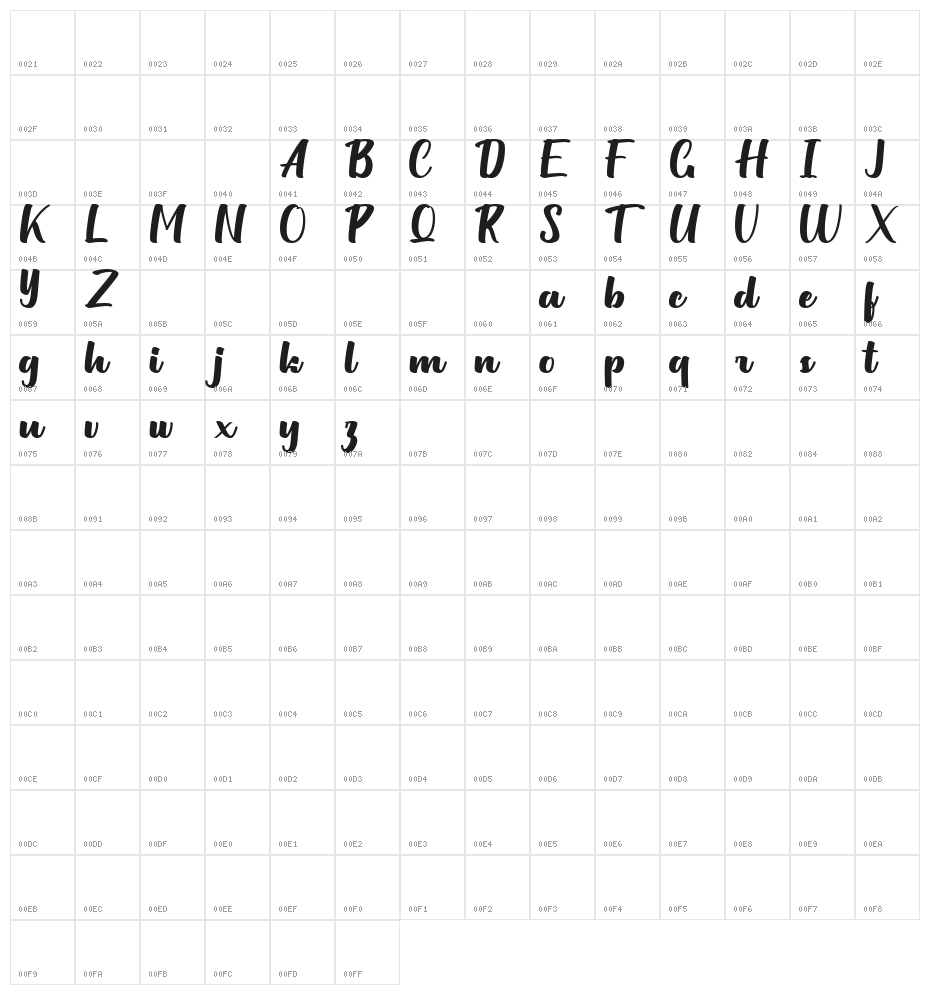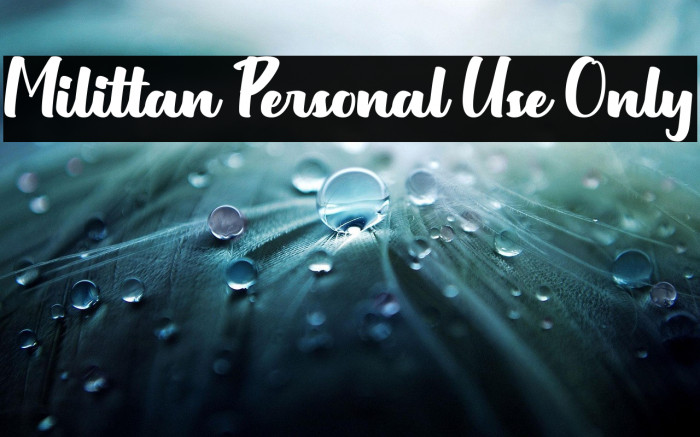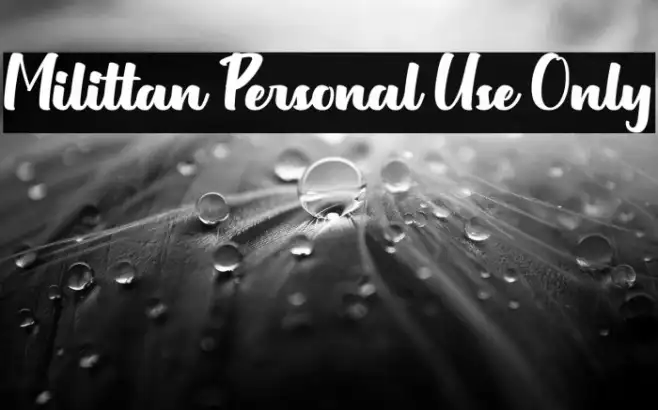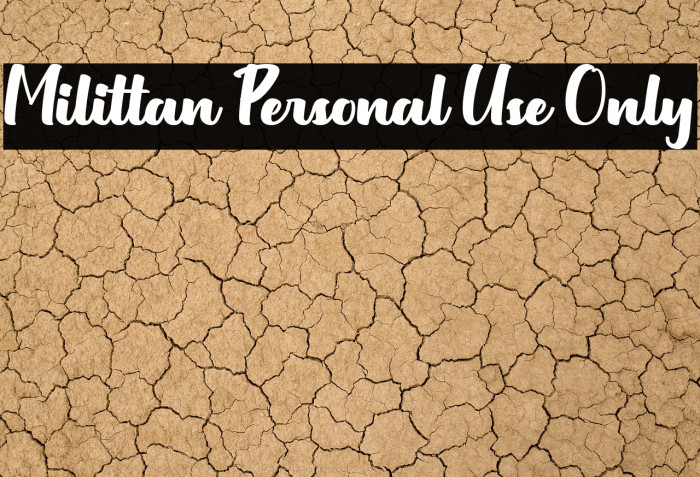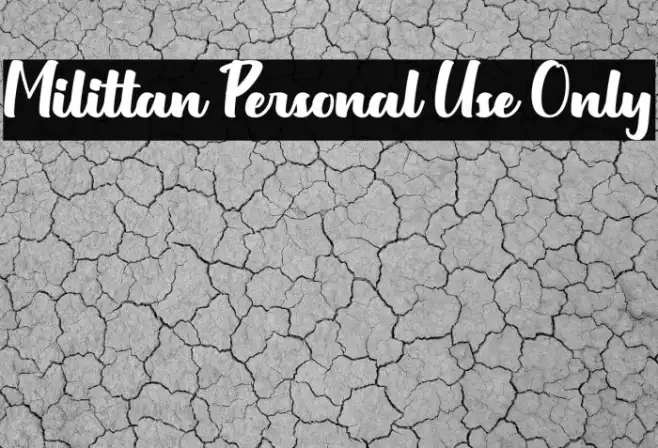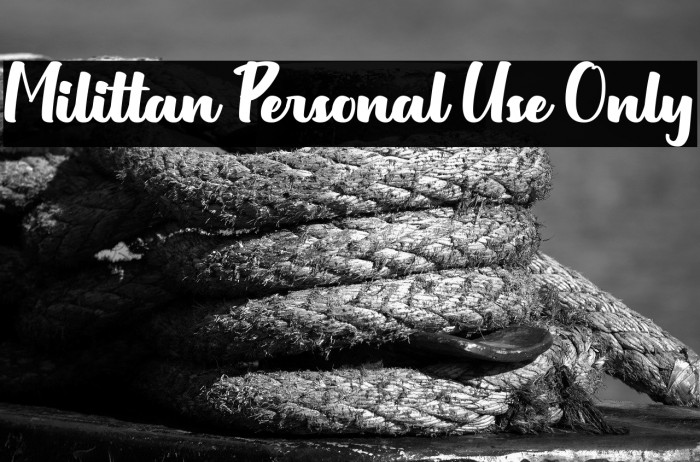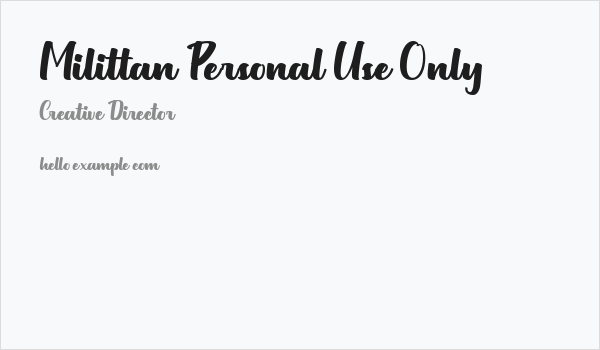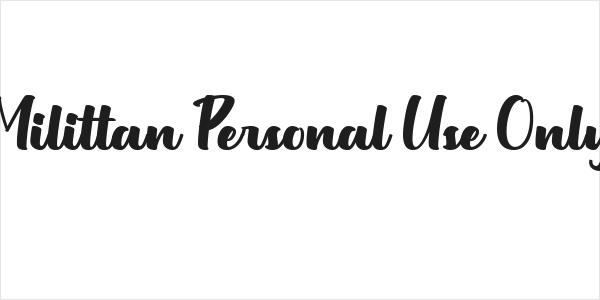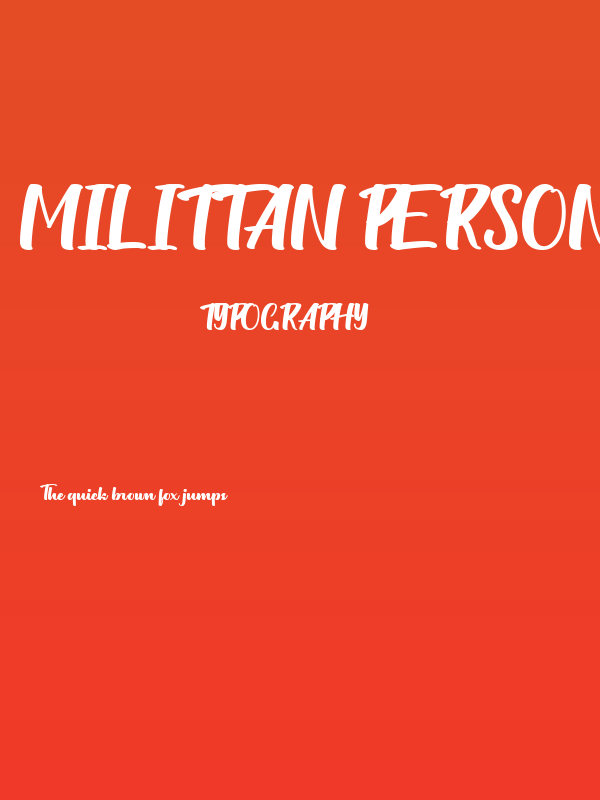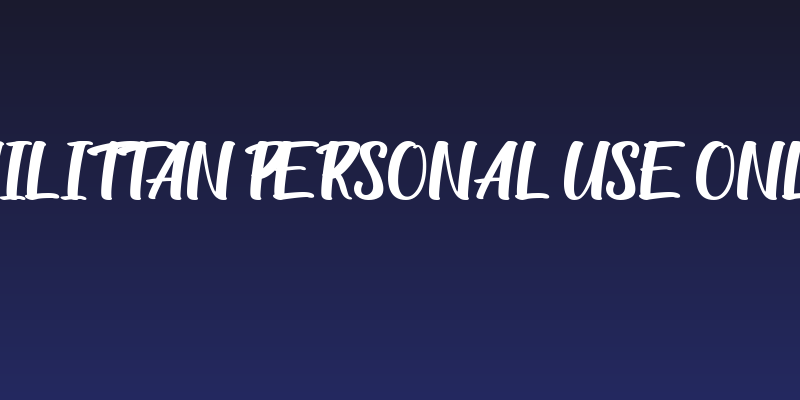
Milittan Personal Use Only Font
Milittan Personal Use Only Description
This font features a bold, flowing script style that combines elegance with a modern flair. The uppercase letters are tall and slightly slanted, giving a sense of movement and dynamism. The lowercase letters maintain a consistent thickness, contributing to a cohesive and harmonious appearance. The overall design is smooth and rounded, with a playful yet sophisticated feel. The font's boldness makes it stand out, while the script style adds a touch of personality and charm. It's suitable for projects that require a personal and inviting touch, such as invitations, branding, and creative designs.